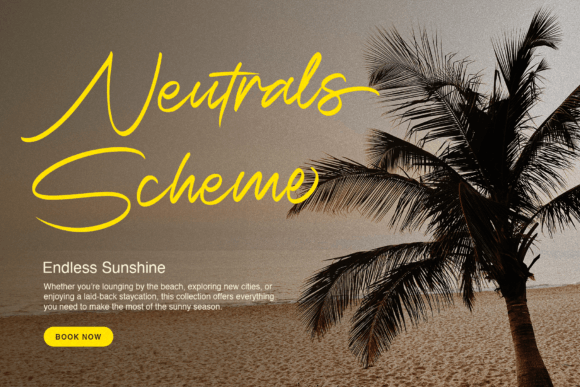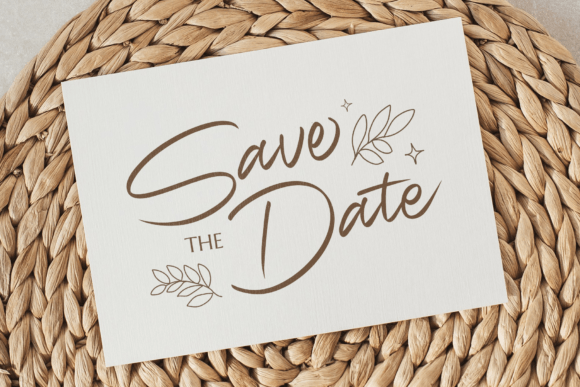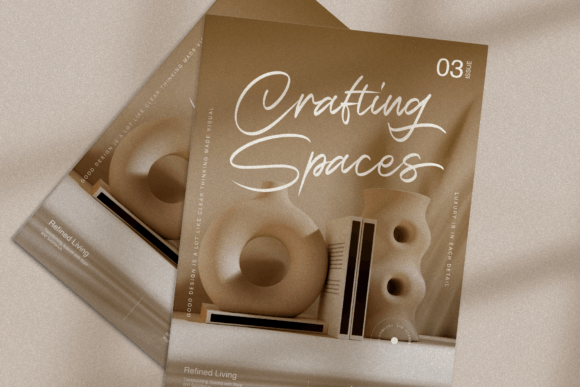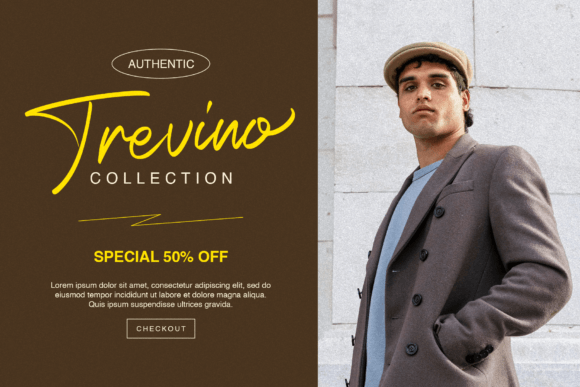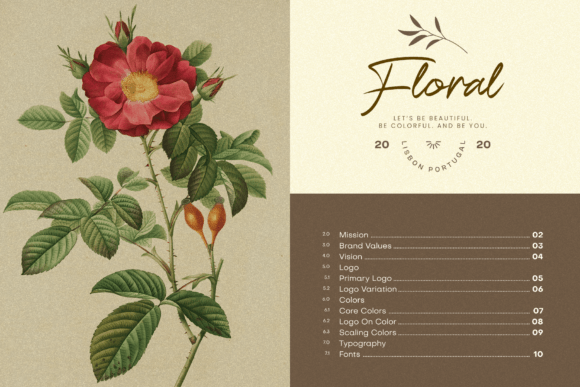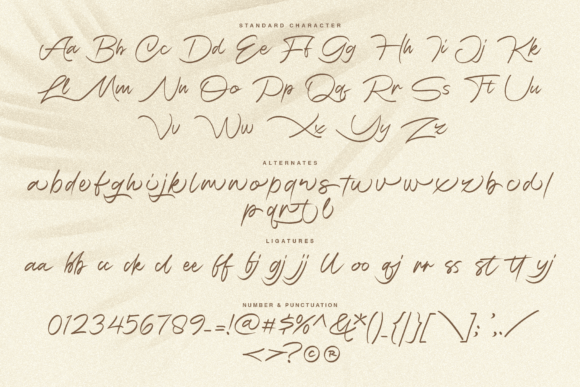
Introduction to Moonlight Breeze Font
Let your designs glow with the charm of Moonlight Breeze, a graceful handwritten script font inspired by the serenity of moonlit nights and the gentle sway of a summer breeze.
Every letter is crafted with a delicate touch, exuding elegance and warmth, perfect for adding a personal and artistic flair to your projects .
Key Features of Moonlight Breeze Font
Why Choose Moonlight Breeze Font?
Moonlight Breeze Font offers exceptional quality and versatility, making it a valuable addition to your design toolkit. Whether you’re creating for personal projects or commercial use, Moonlight Breeze Font delivers professional results.